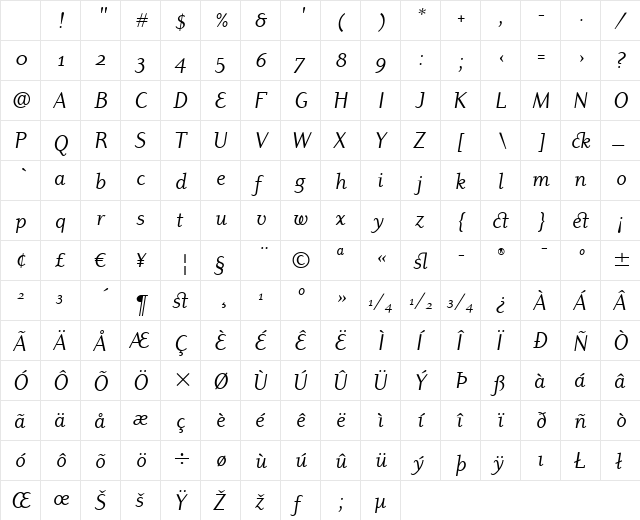
Dyadis ITC is a composed and adaptable typeface that performs quietly and consistently across a wide range of design contexts. The slanted form adds forward momentum and visual energy.
Pro Tip: Use Dyadis ITC for emphasis, pull quotes, and subheadings where its slanted energy can add rhythm to the layout.
Who designed the Dyadis ITC Book Italic font?